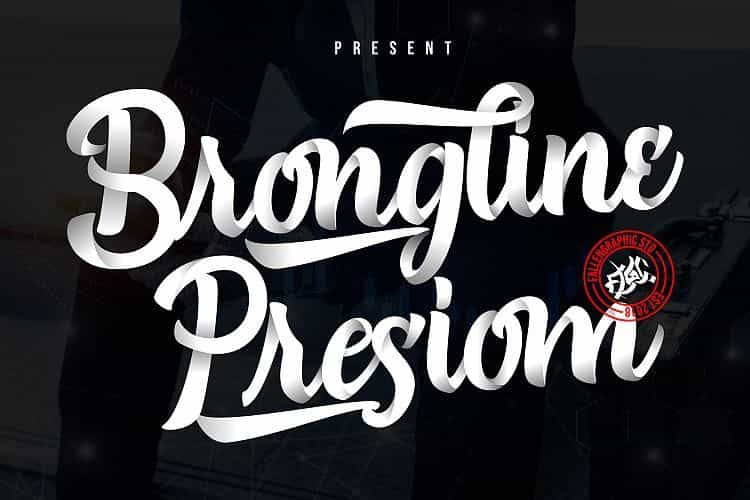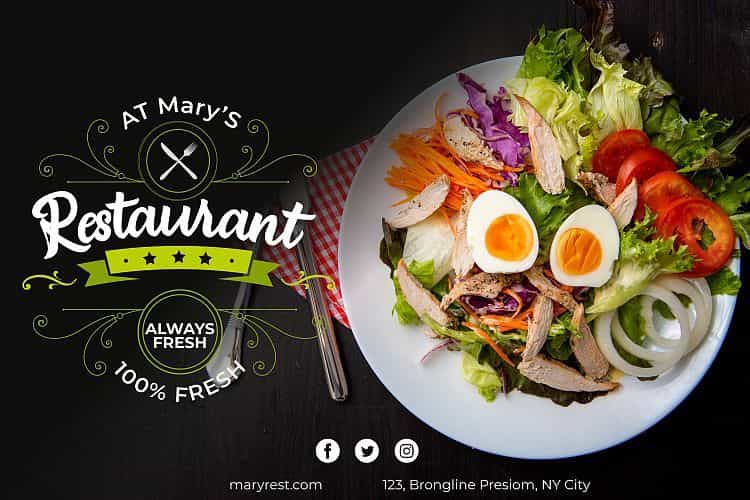
This is ‘Brongline Presiom Font’. This is a new fresh modern font related the handmade calligraphy design with decorative characters and dancing baseline. It is design and shared by FallenGraphic Std. Extended with a snap, it is an attractive, neat and highly modern creation for every graphic designer out there – a bold script font.